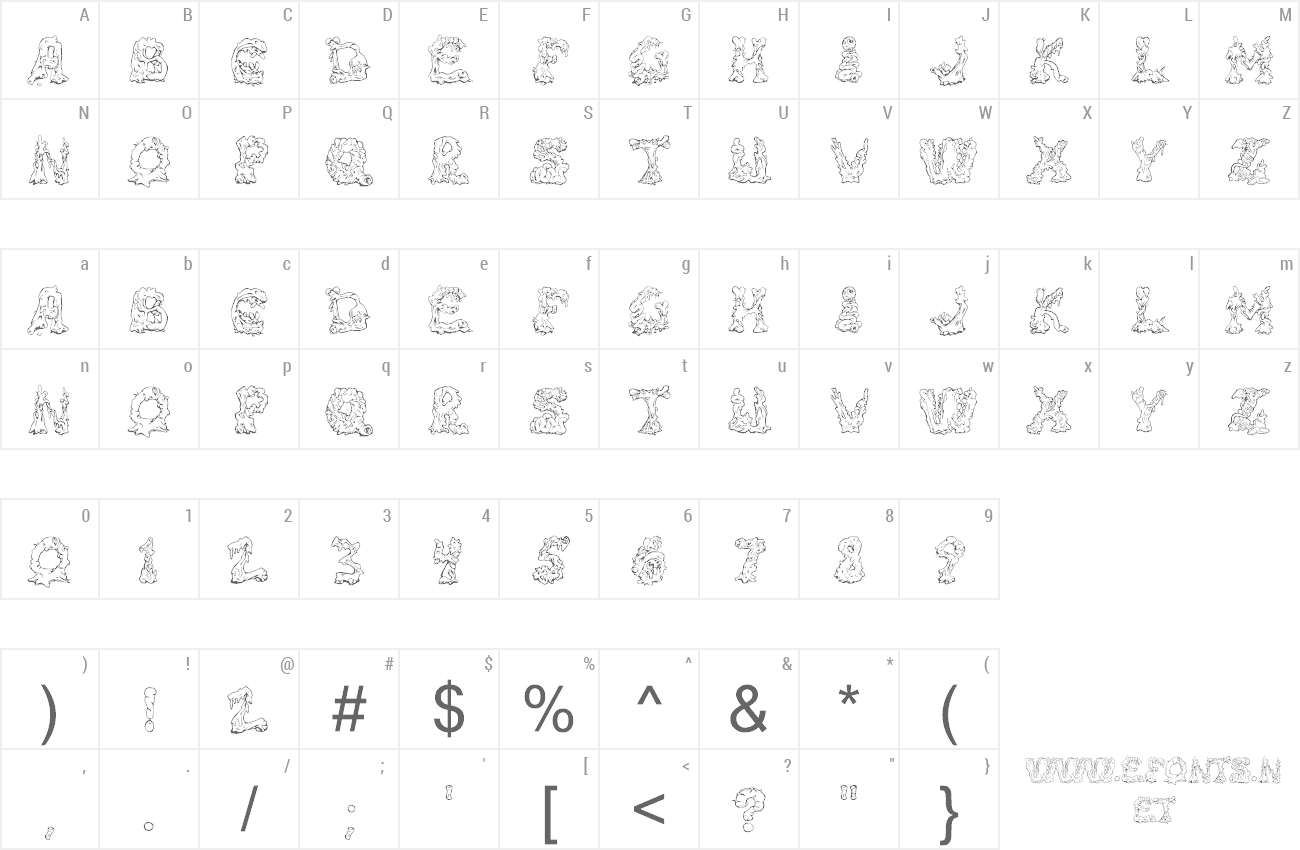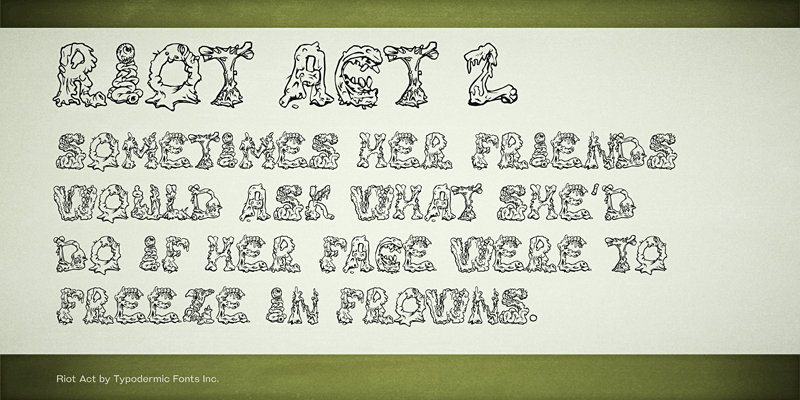
Preview and download Riot Act Font. Created by Typodermic Fonts in Fancy Horror styles with 100% Free license.
Riot Act 2 is a revolting headline belcher consisting mainly of monster viscera. This font includes a license that allows free commercial use: sometimes referred to as a desktop license. This allows you to install the font on a computer and use it to create posters, web graphics, game graphics, t-shirts, videos, signs, logos and more. Read the license agreement for details. If you'd like to embed this font in an app, ebook, on the web or anything that's not covered by the desktop license agreement, visit the link below. You'll find distributors who offer different types of licenses or you can contact me for help. http://typodermicfonts.com/riot-act-2/ |